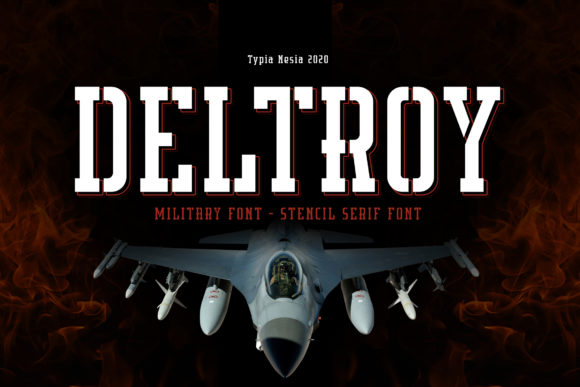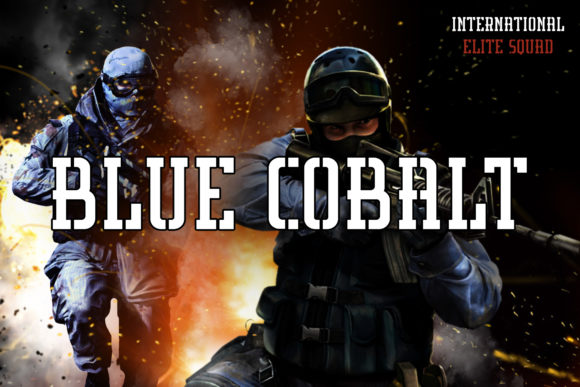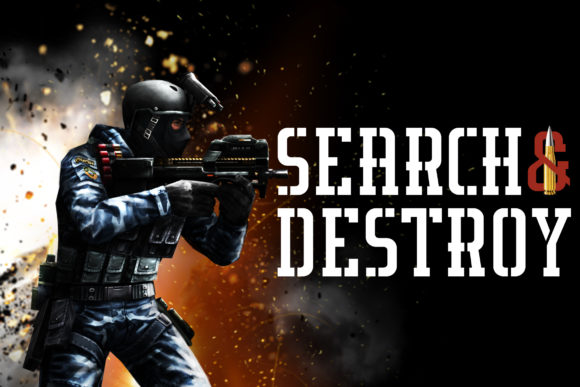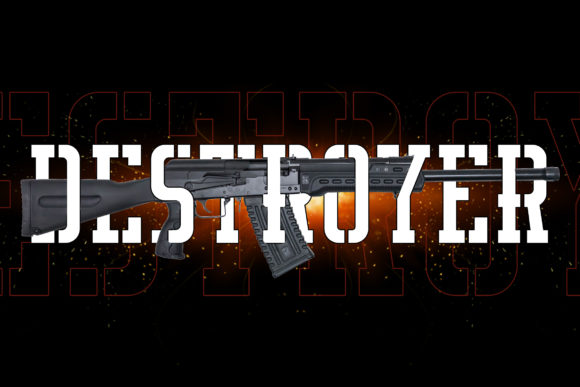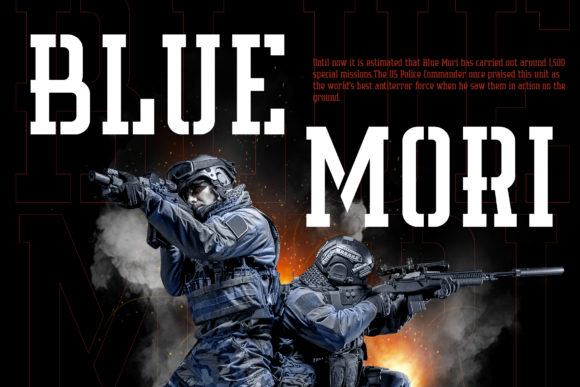
Deltory: A Versatile and Striking Slab Serif Font
Deltory is a carefully handcrafted slab serif font that combines bold design with versatile application. This typeface offers designers a powerful tool for creating impactful typography across various design projects, from military-inspired themes to modern branding.
Key Features of Deltory
- Handcrafted Design: Carefully created to become a true favorite among designers
- Slab Serif Structure: Features the characteristic thick, rectangular serifs typical of slab serif fonts
- Versatile Application: Suitable for use on busy backgrounds or as standalone headlines
- Military-Inspired Aesthetic: Can be used for army-themed projects while maintaining modern appeal
- Outstanding in Any Context: Designed to look impressive across various design applications
Ideal Uses for Deltory
Deltory’s unique characteristics make it particularly well-suited for:
- Branding and logo design
- Editorial layouts and headlines
- Poster and advertisement designs
- Military-themed projects
- Modern advertising and marketing materials
- Book covers and art quotes
- Sports and esports design
When incorporating Deltory into your designs, consider the following tips:
- Use for headlines or short blocks of text to maximize its bold impact
- Experiment with placing it on busy backgrounds to showcase its versatility
- Consider using it in projects where you want to convey strength and modernity
- Pair with simpler sans-serif fonts for body text to create contrast
Deltory is an excellent choice for designers looking to add a striking and versatile slab serif to their typographic toolkit. Its handcrafted design and ability to stand out in any context make it a valuable asset for various design projects. Whether you’re working on logo designs, creating eye-catching poster designs, or developing branding for military-inspired or modern projects, Deltory offers the perfect blend of boldness and adaptability.
Explore how Deltory can bring a powerful and versatile edge to your design projects. From standalone headlines to complex layouts with busy backgrounds, this font provides the tools to create impactful and memorable typography that stands out in various design contexts.